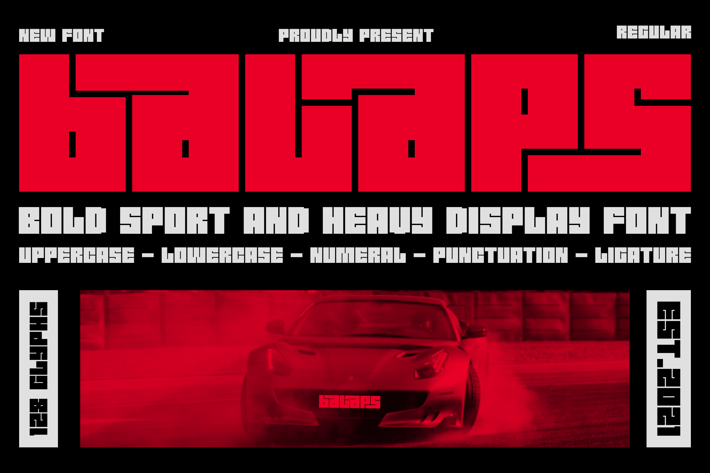
Balaps - Bold Sport And Heavy Display Font
Introducing our new product Balaps Font Bold Sport And Heavy Display Font
Balaps Font Modern Font is a Bold Sport And Heavy Display Font. The font is suitable for any branding project like logo, t-shirt printing, esport, and many more.
outstanding in a wide range of contexts.
Balaps Uppercase
Balaps Lowercase
Balaps Ligature